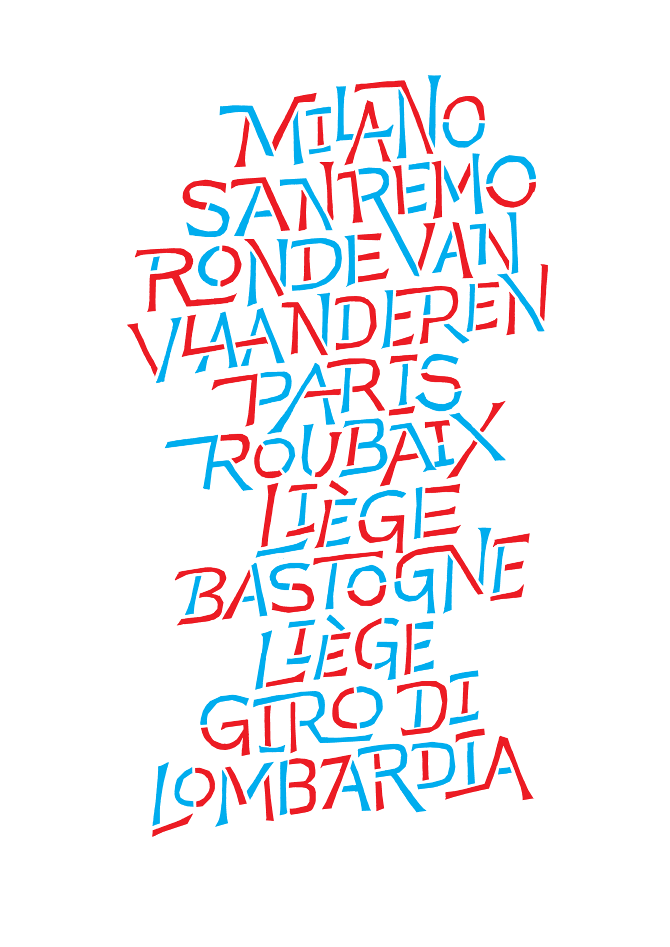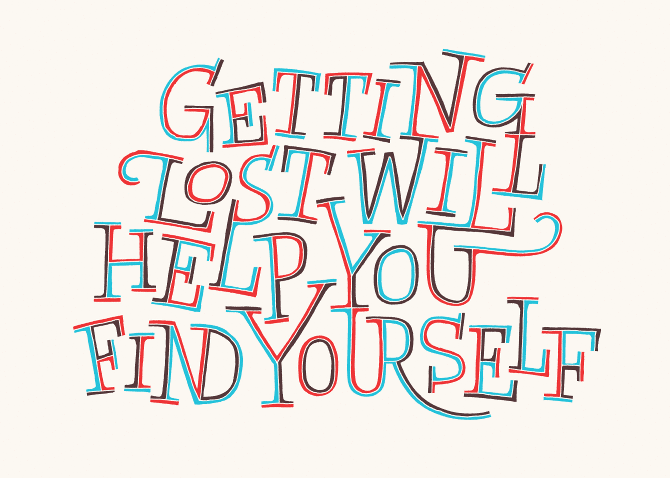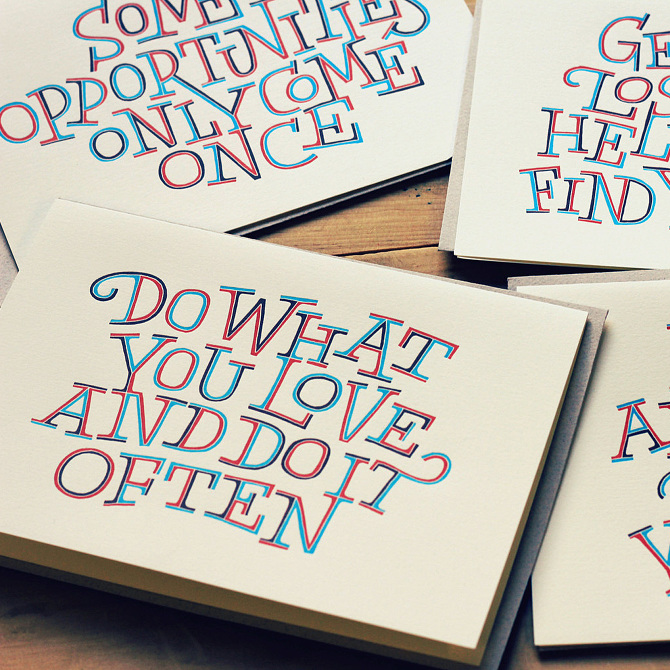
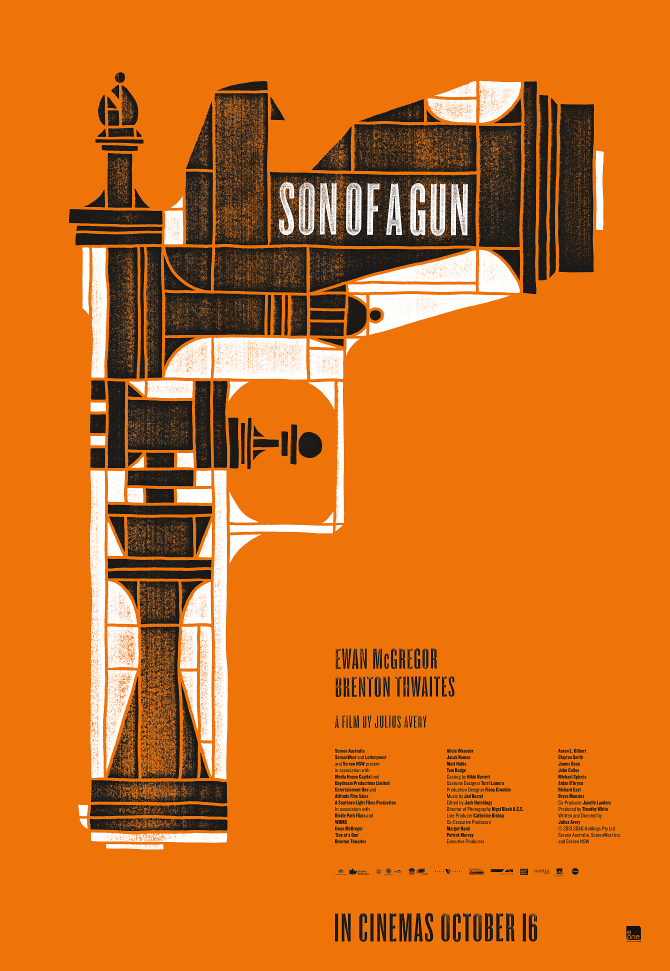
Teaser and theatrical poster pair for Son of a Gun in Australia.
Under direction from Mark Gowing.
4 illustrations, containing over 8000 letters for Invesco, to convey the complexity and noise of the financial investing.
Under direction from Jason McKean.
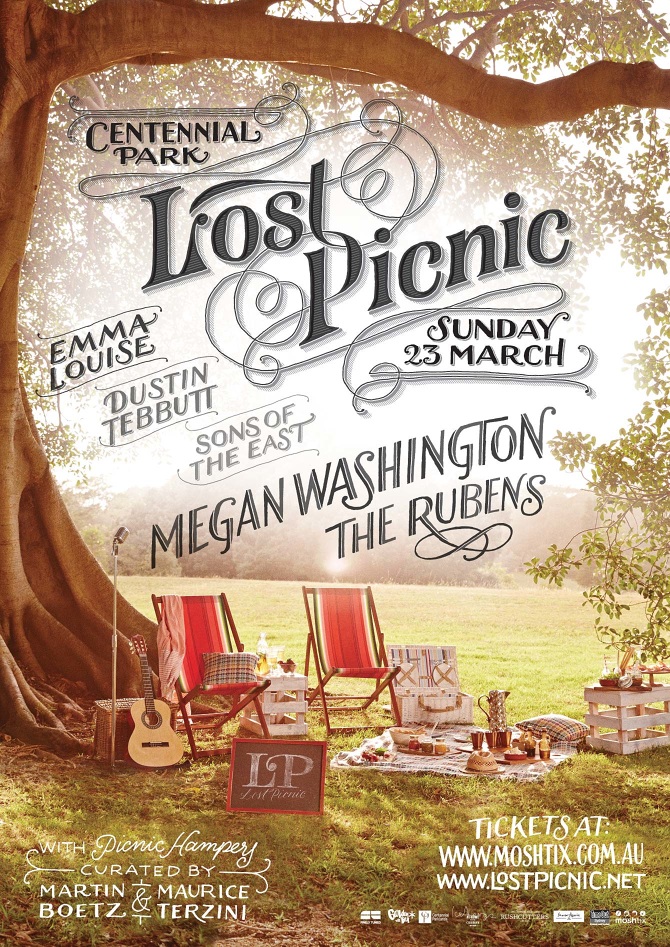
Lettering for a music festival in held in the middle of Sydney.
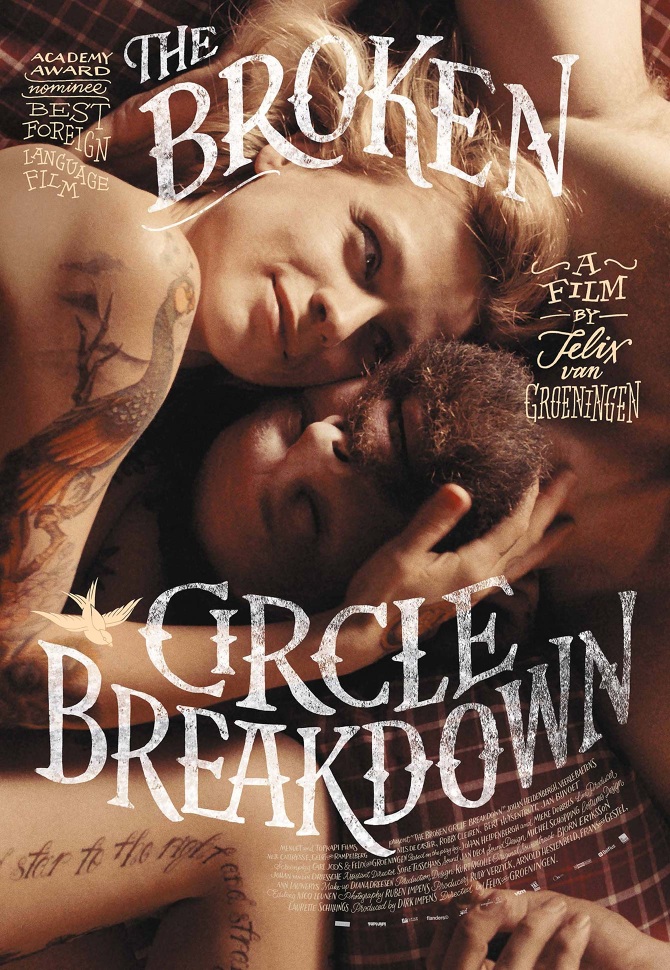
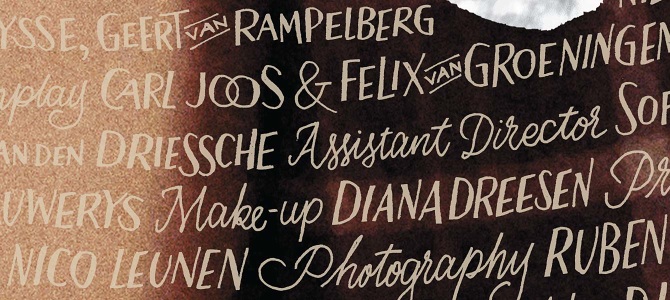
Lettering for the The Broken Circle Breakdown poster including credit block.
Under direction from Mark Gowing.
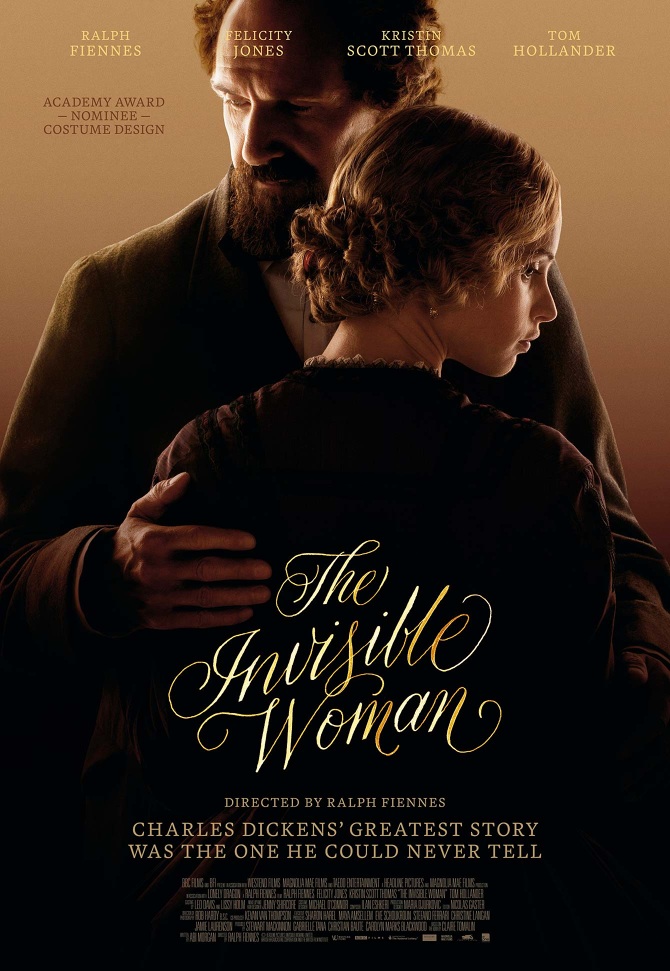
Poster for The Invisible Woman, features Blanco in use along with some calligraphy.
Under direction from Mark Gowing.
Lettering to commemorate a 50th wedding anniversary. Applications included etched glass, foiled leather, embroidery and printing.
Under direction from Ivana Martinovic.
Custom lettering for the merchandising of musician, Chet Faker.
Under direction from Christopher Doyle.
To celebrate the launch of a their new line of LEC printers, Roland DG held an exhibition at Lo-fi collective. Artists were asked to explore the new technology that makes it possible to print metallic or UV inks instantly. The lines are an abstraction of the alphabet. Limited edition of 2, printed A1.
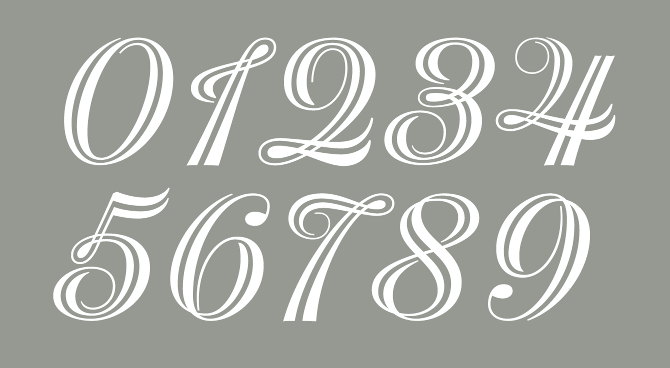
Custom lettering for the 2012 Annual Report and meeting of the USGBC. The set of figures was designed to display the many statistics in the report.
Under direction from Polygraph Creative in Washington DC.
Lettering commissioned by New York based creative, John J Custer for his portfolio website.
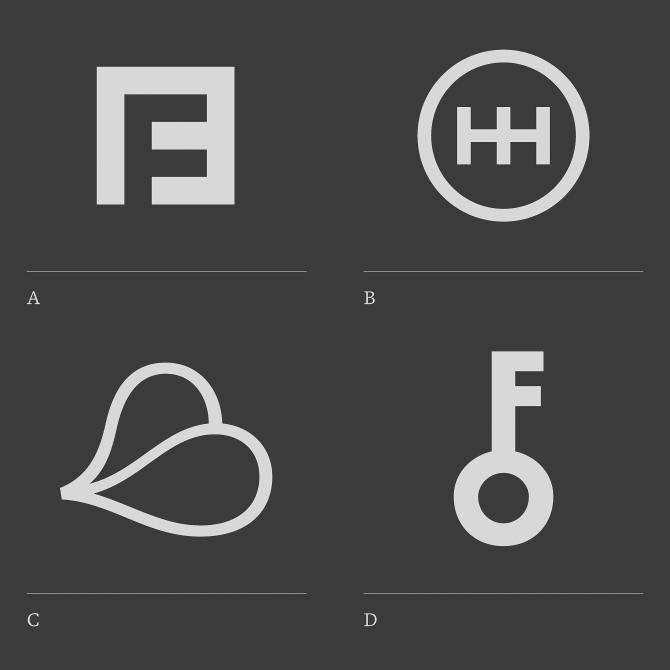
A handful of monograms from past identity jobs.
A. 13th Floor Belvedere
Cocktail Bar in Baltimore.
B. H&H Service Advantage
Transmission Repairs, Nebraska.
C. Beelove
Honey Products, Australia.
D. Frank O'Neill
Locksmiths, Brisbane.